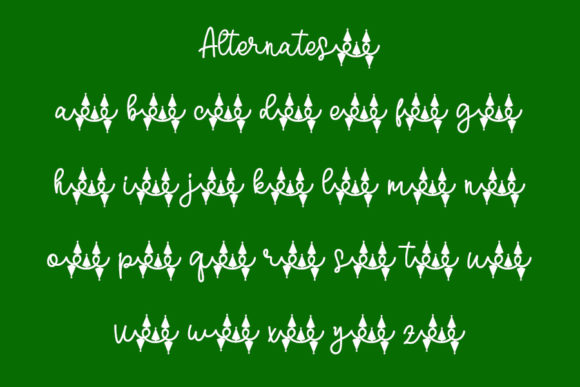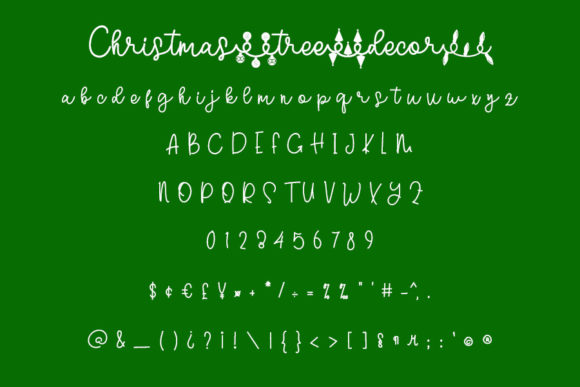
Christmas Tree Decor Font
db-ku.com - Script & Handwritten -- Christmas Tree Decor is a spectacular handwritten font with cute festive elements. It is PUA encoded which means you can access all of the glyphs and swashes with ease! Add it confidently to your favorite creations and let yourself be amazed by the outcome generated.